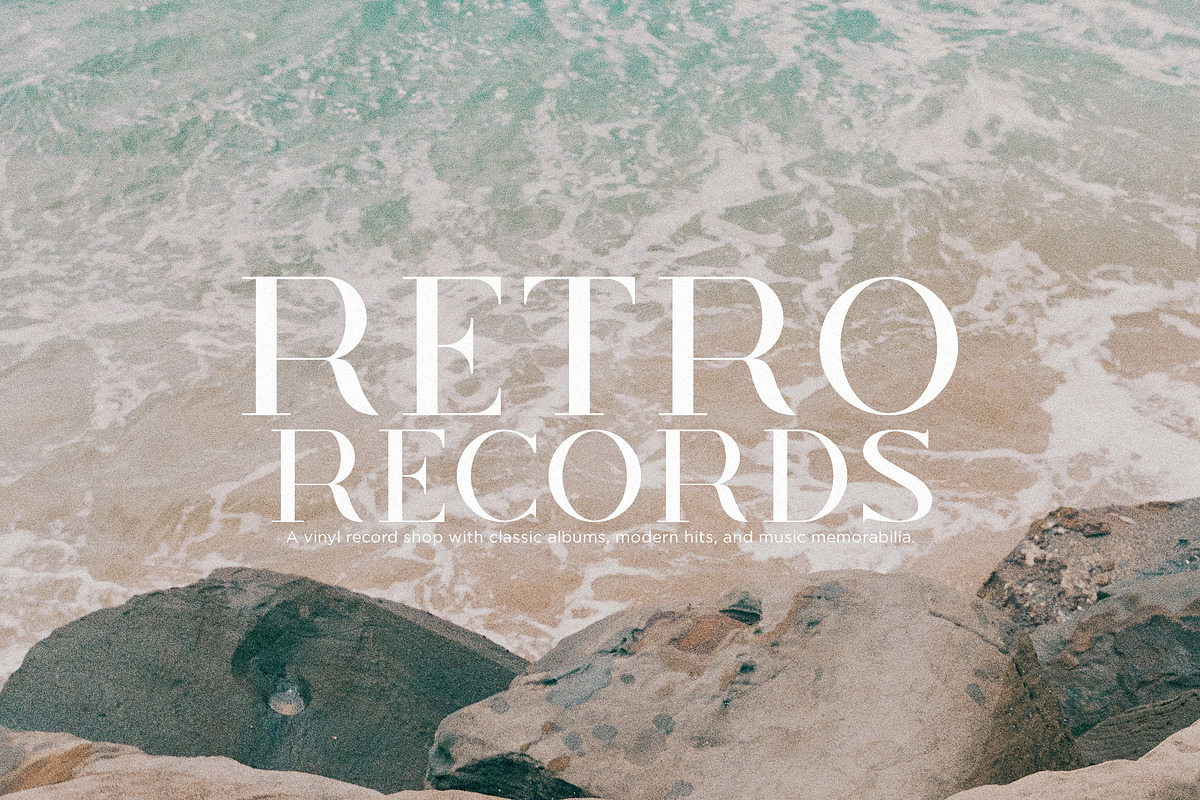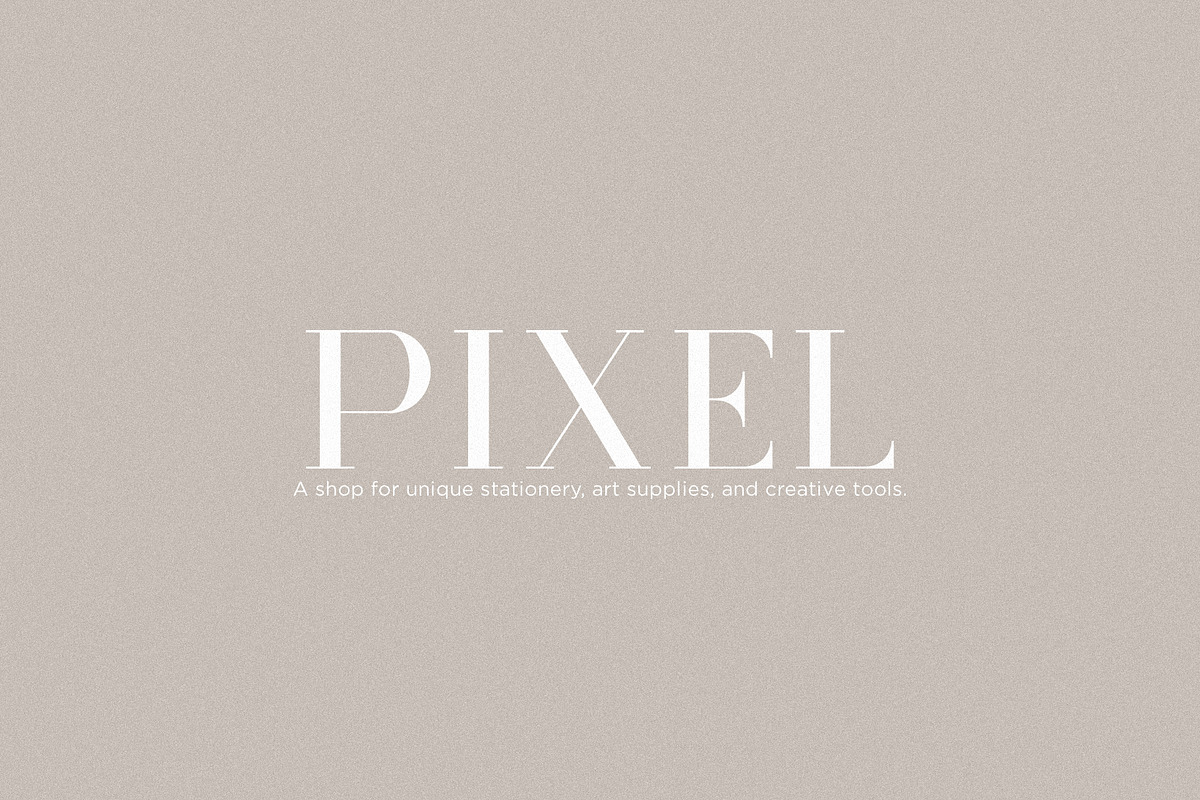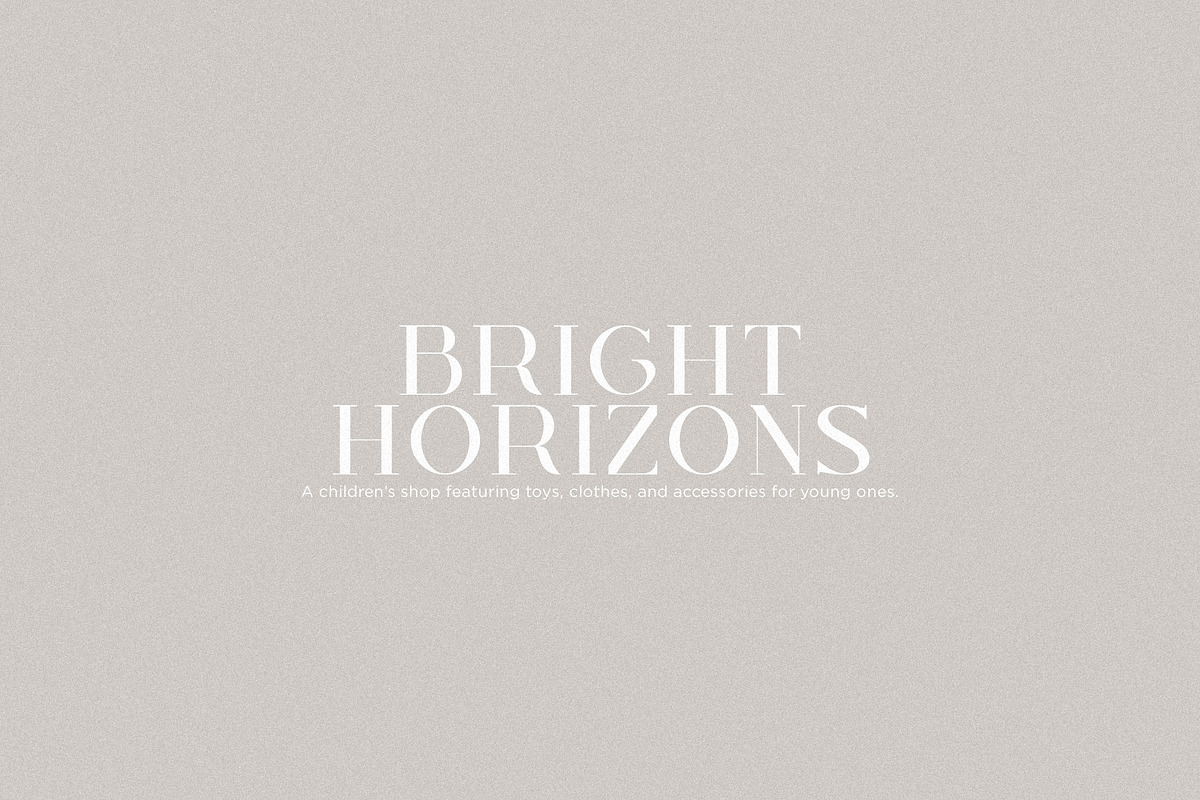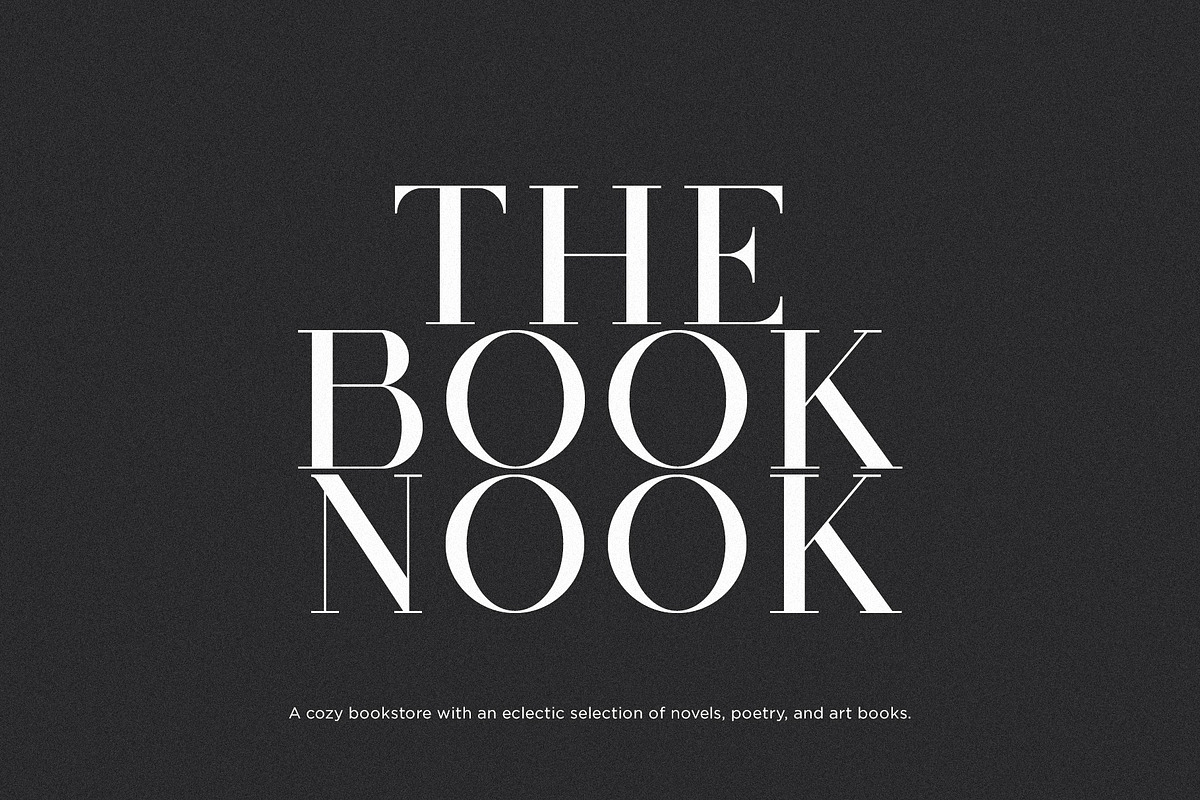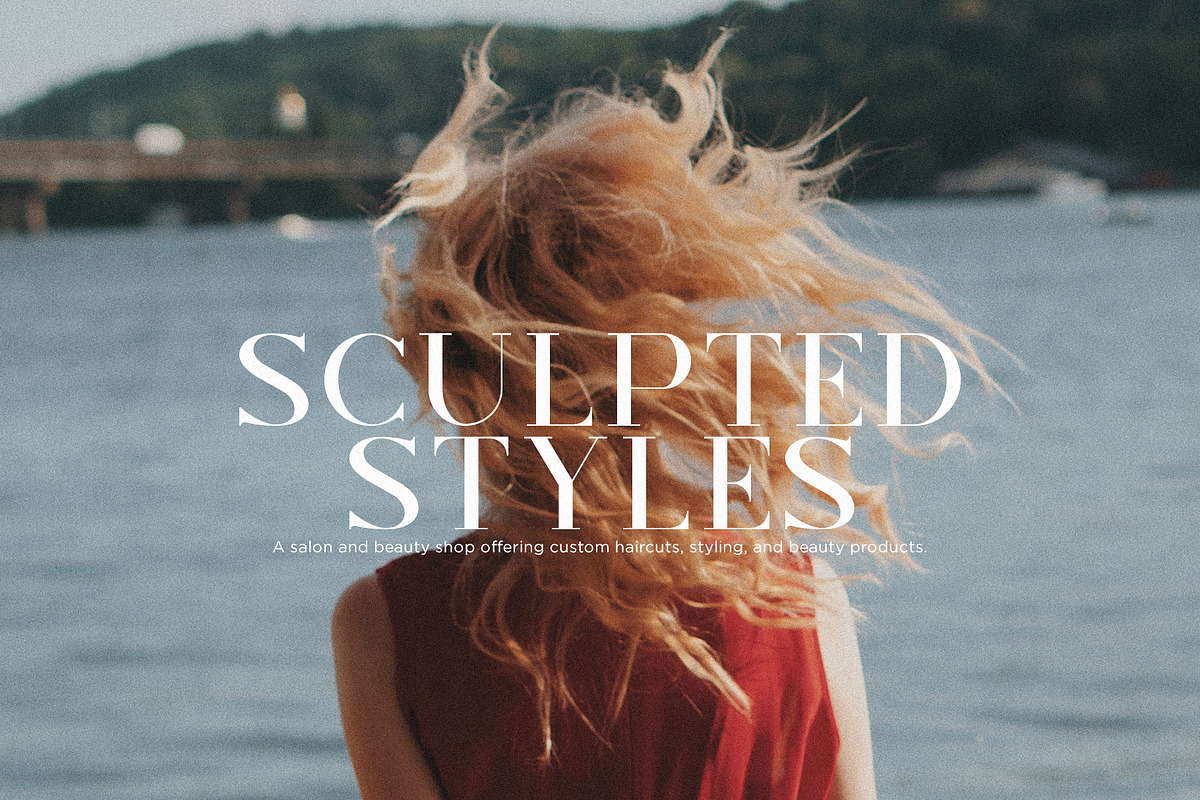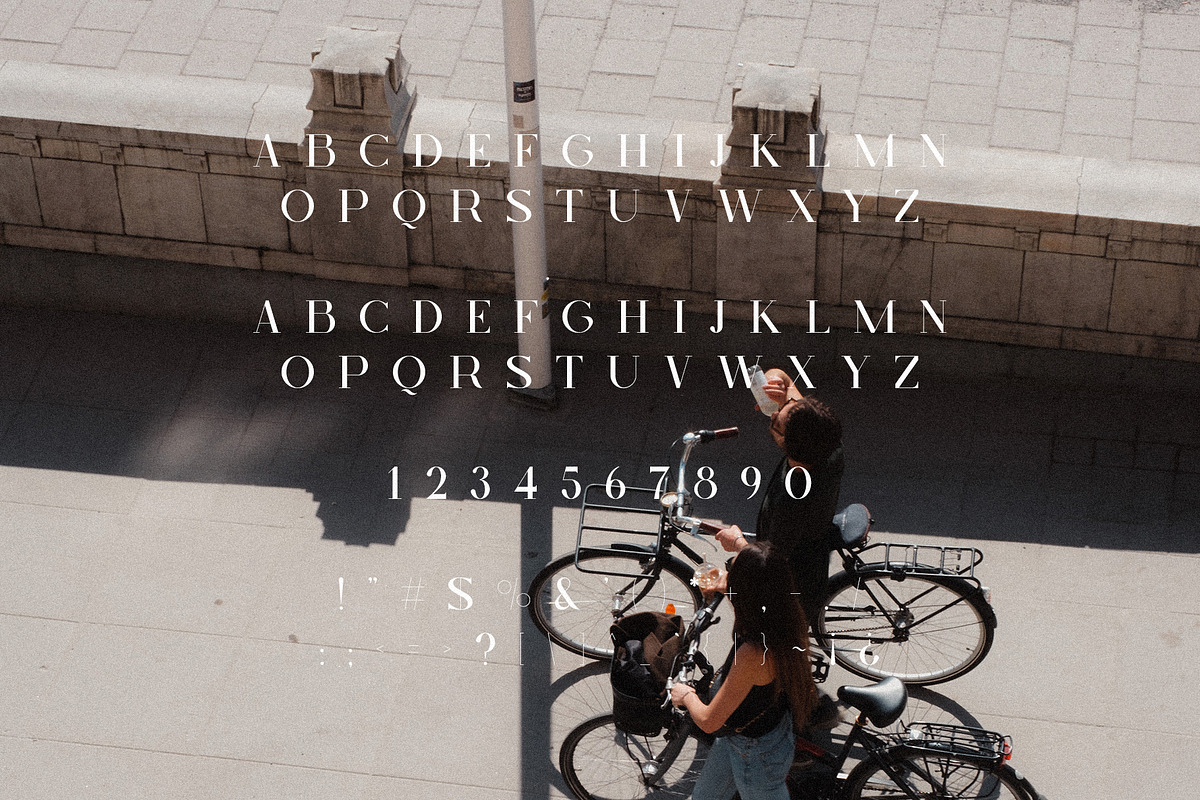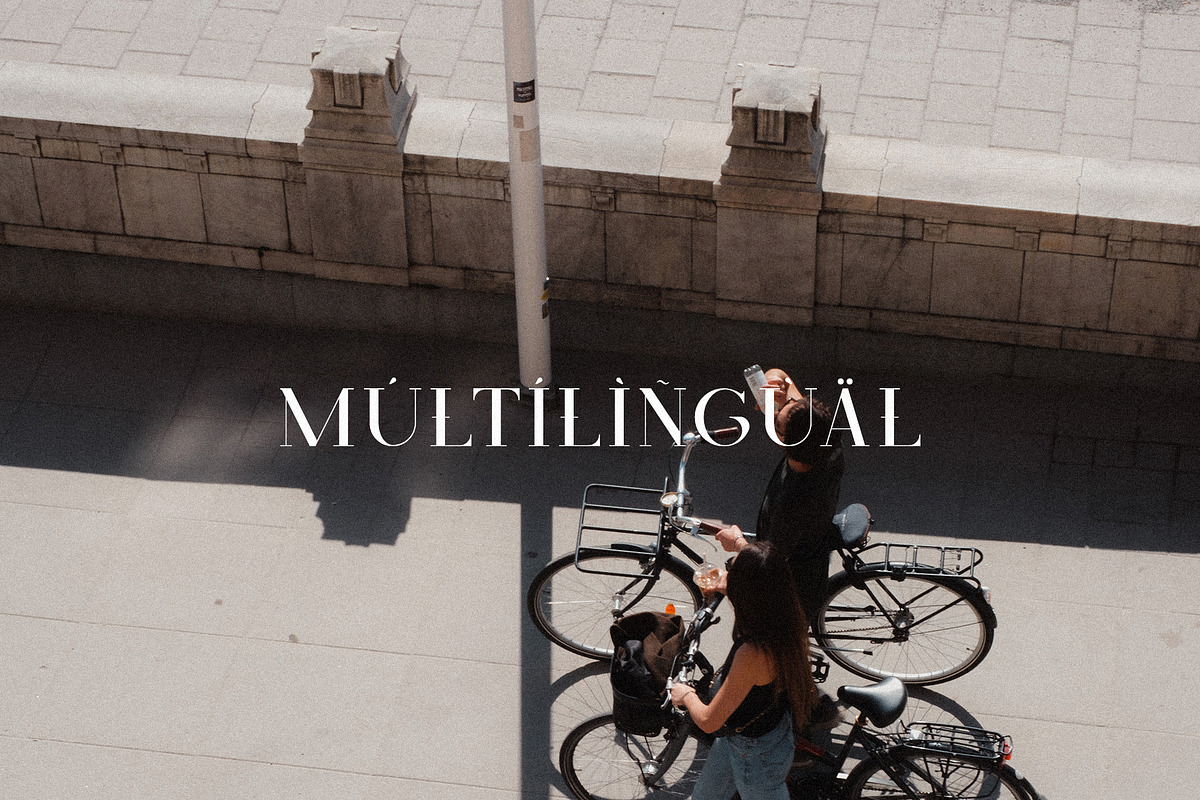
Zenith - Elegant Serif
Zenith - Elegant Serif is a timeless typeface that embodies sophistication and grace. With its refined serifs and well-crafted letterforms, it exudes classic elegance while offering a modern twist. Zenith strikes the perfect balance between traditional charm and contemporary design, making it ideal for high-end branding, luxury websites, editorial layouts, and premium packaging. Its strong presence paired with delicate details gives any project an air of prestige and professionalism, making it the go-to choice for projects that aim to convey both authority and elegance.